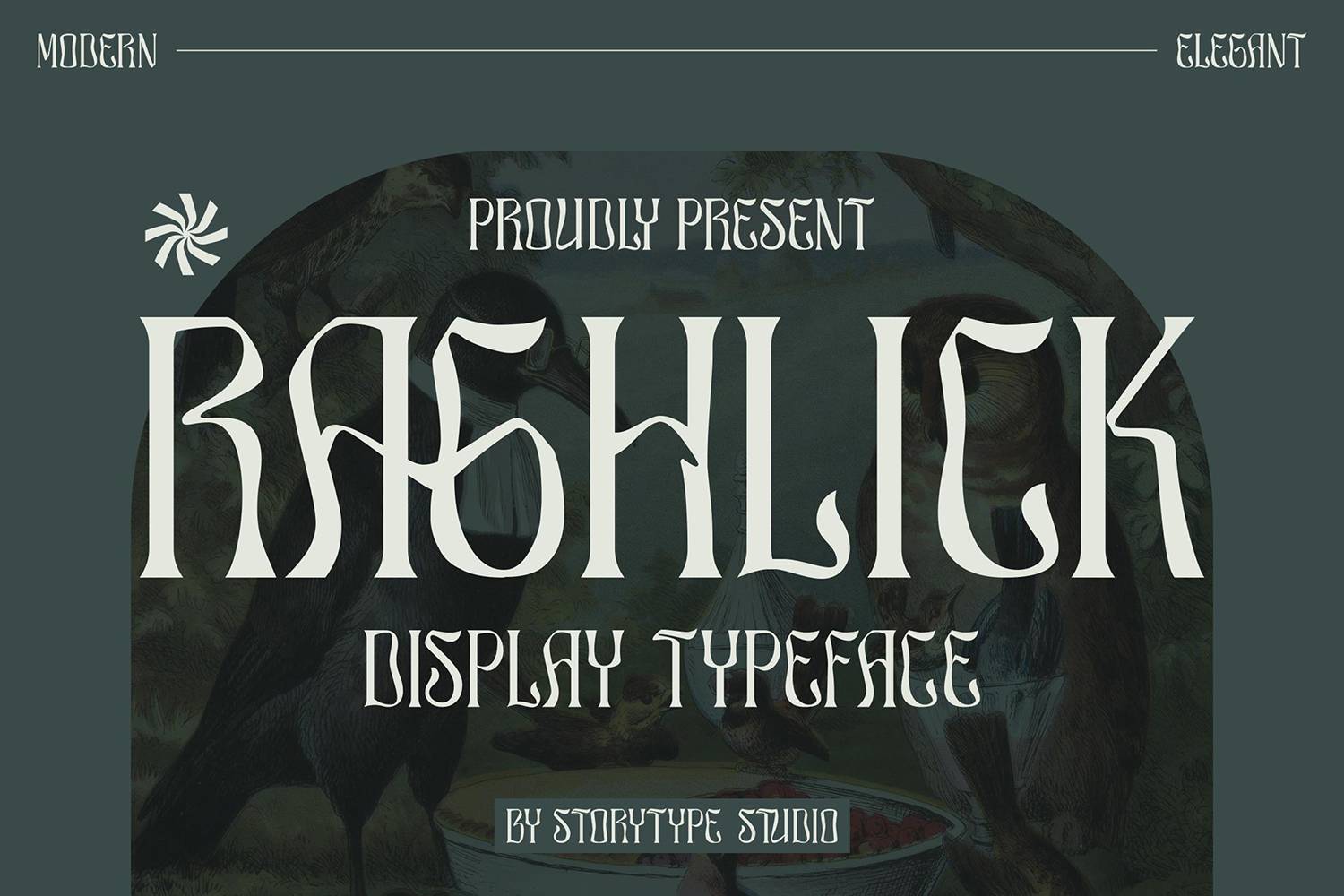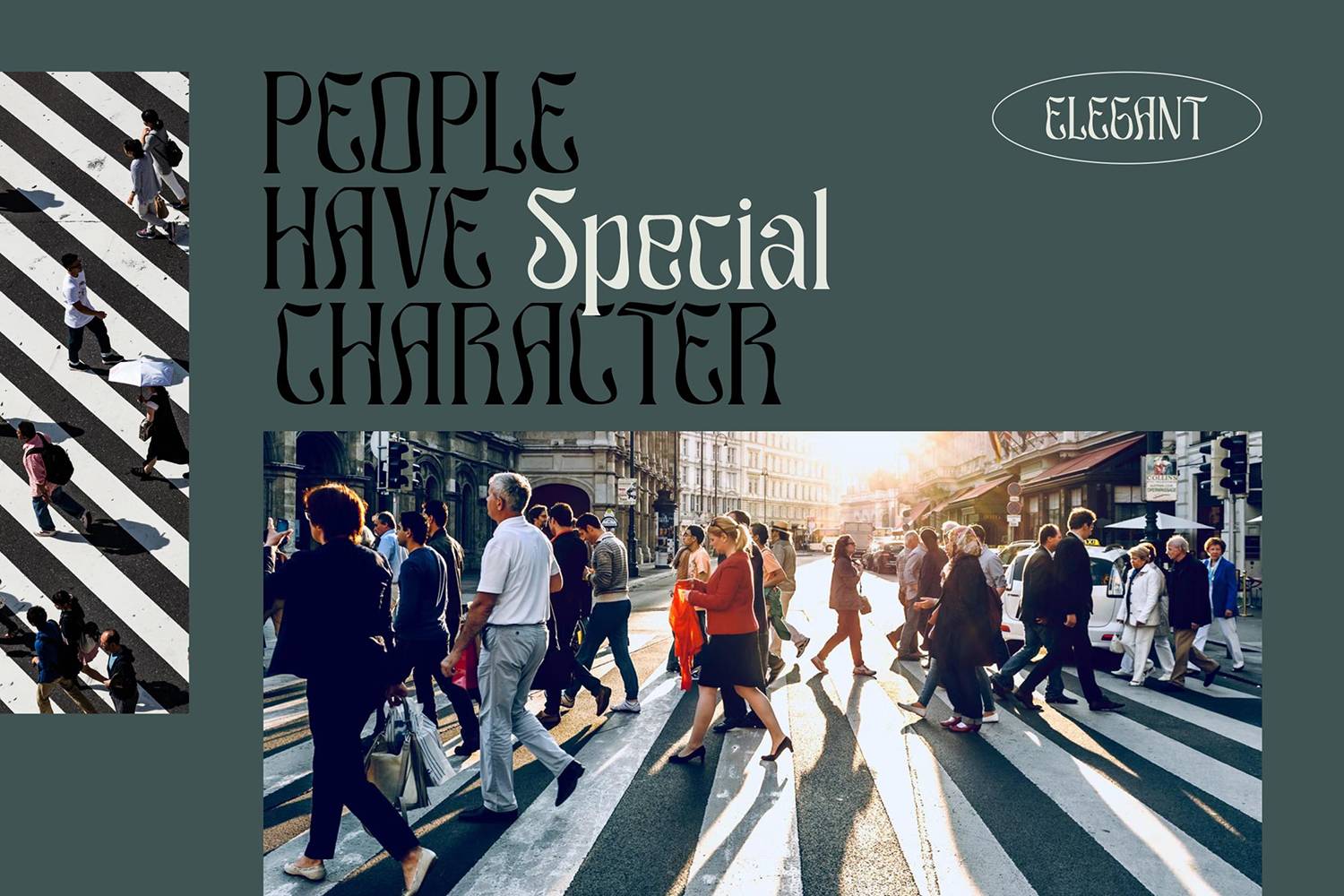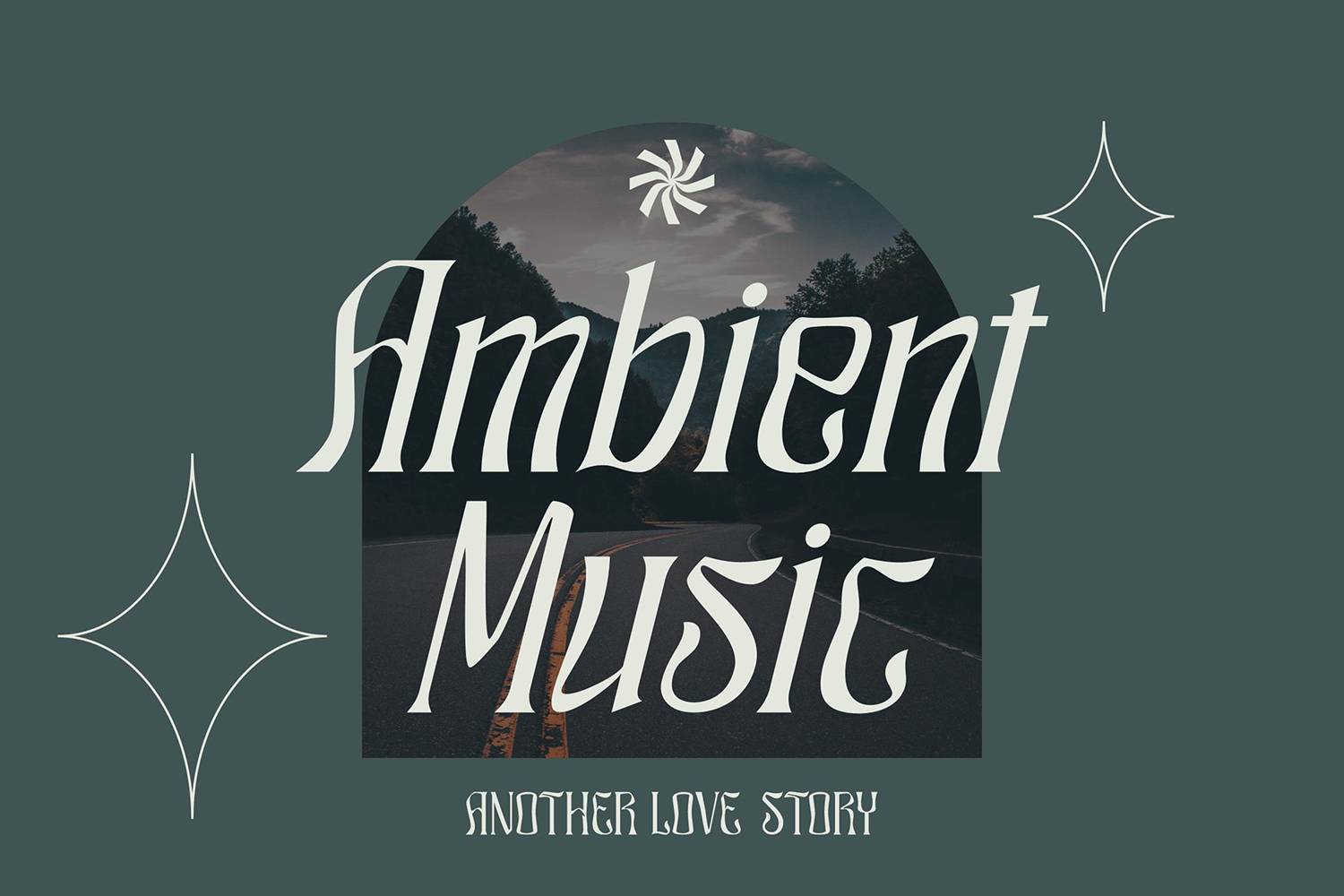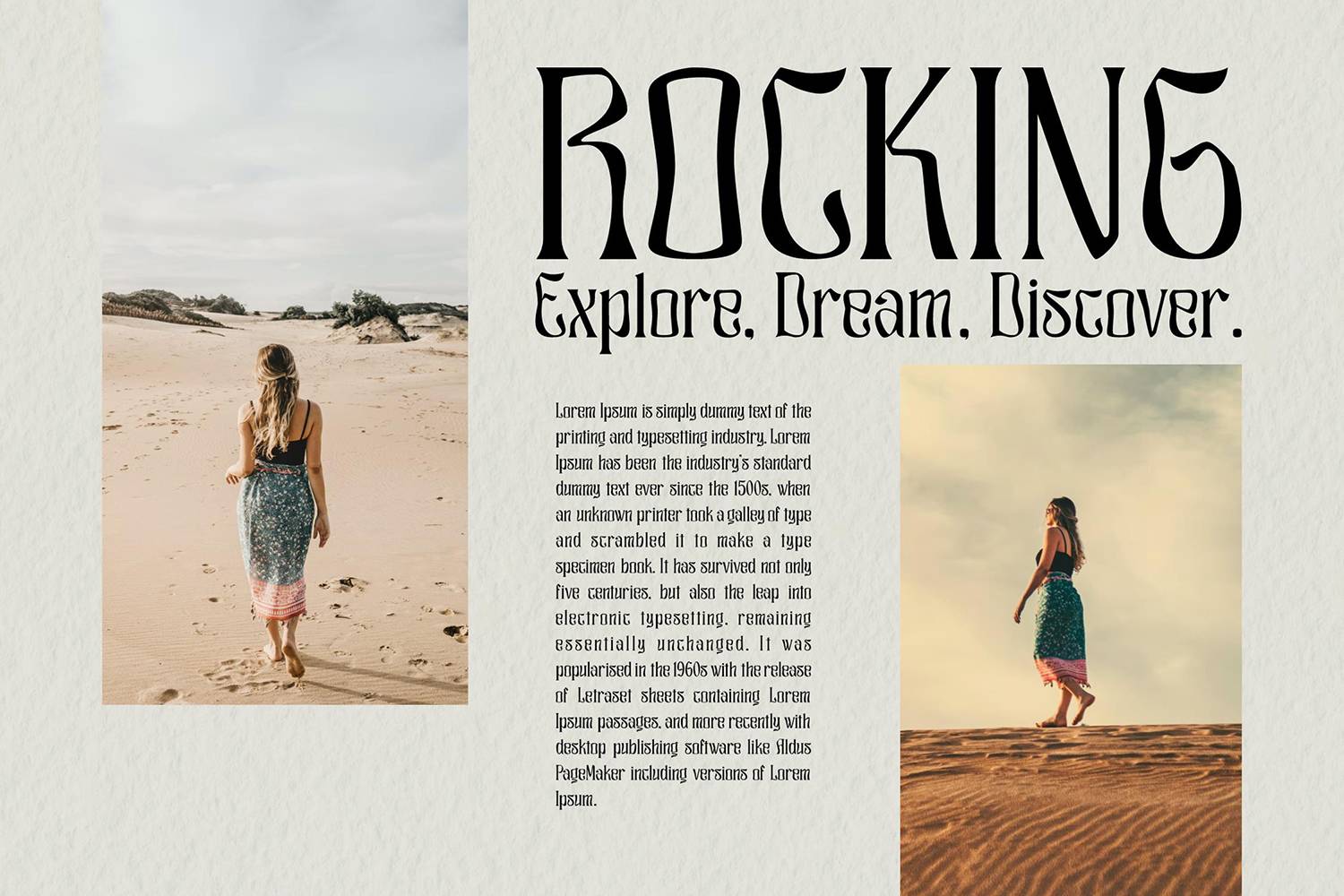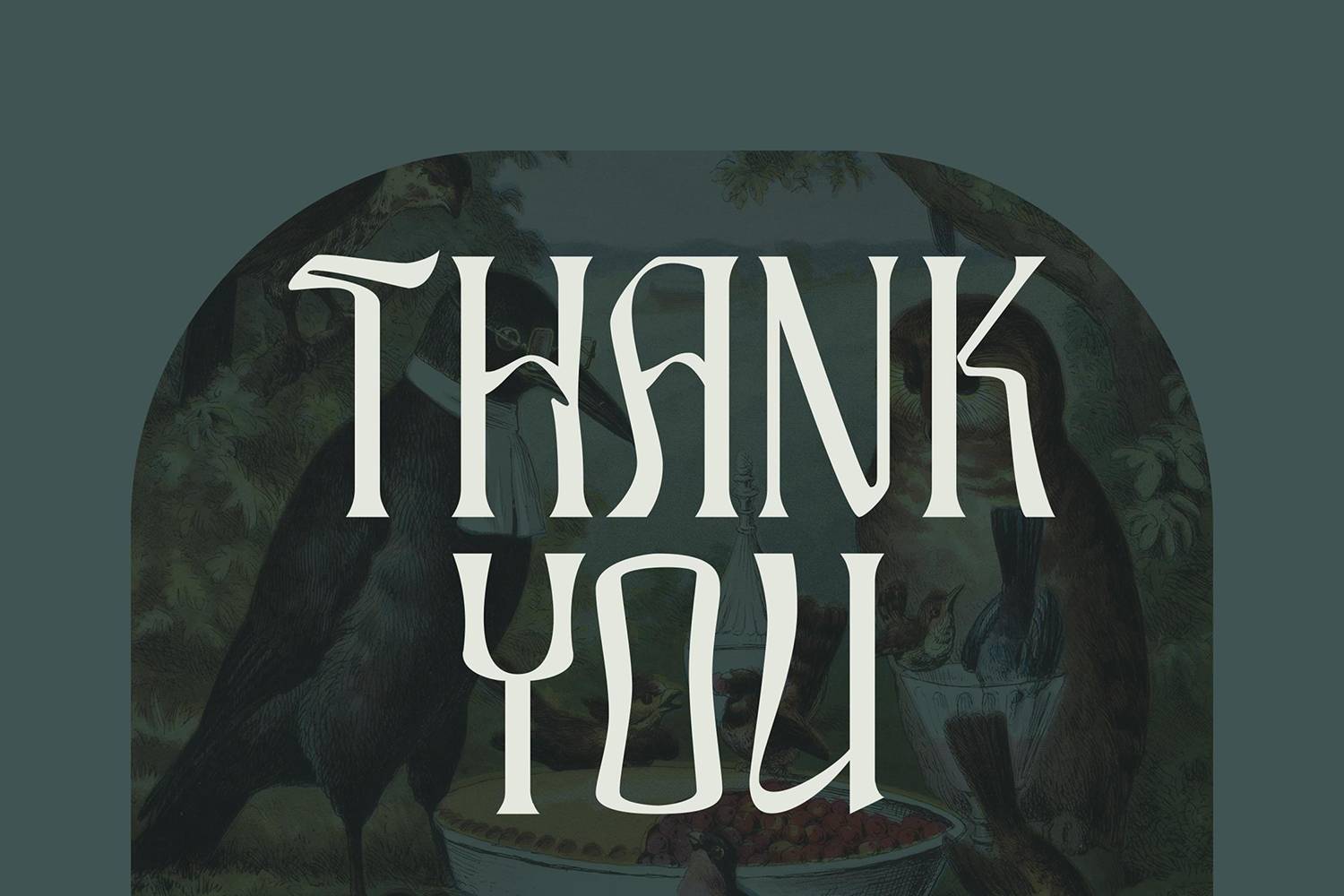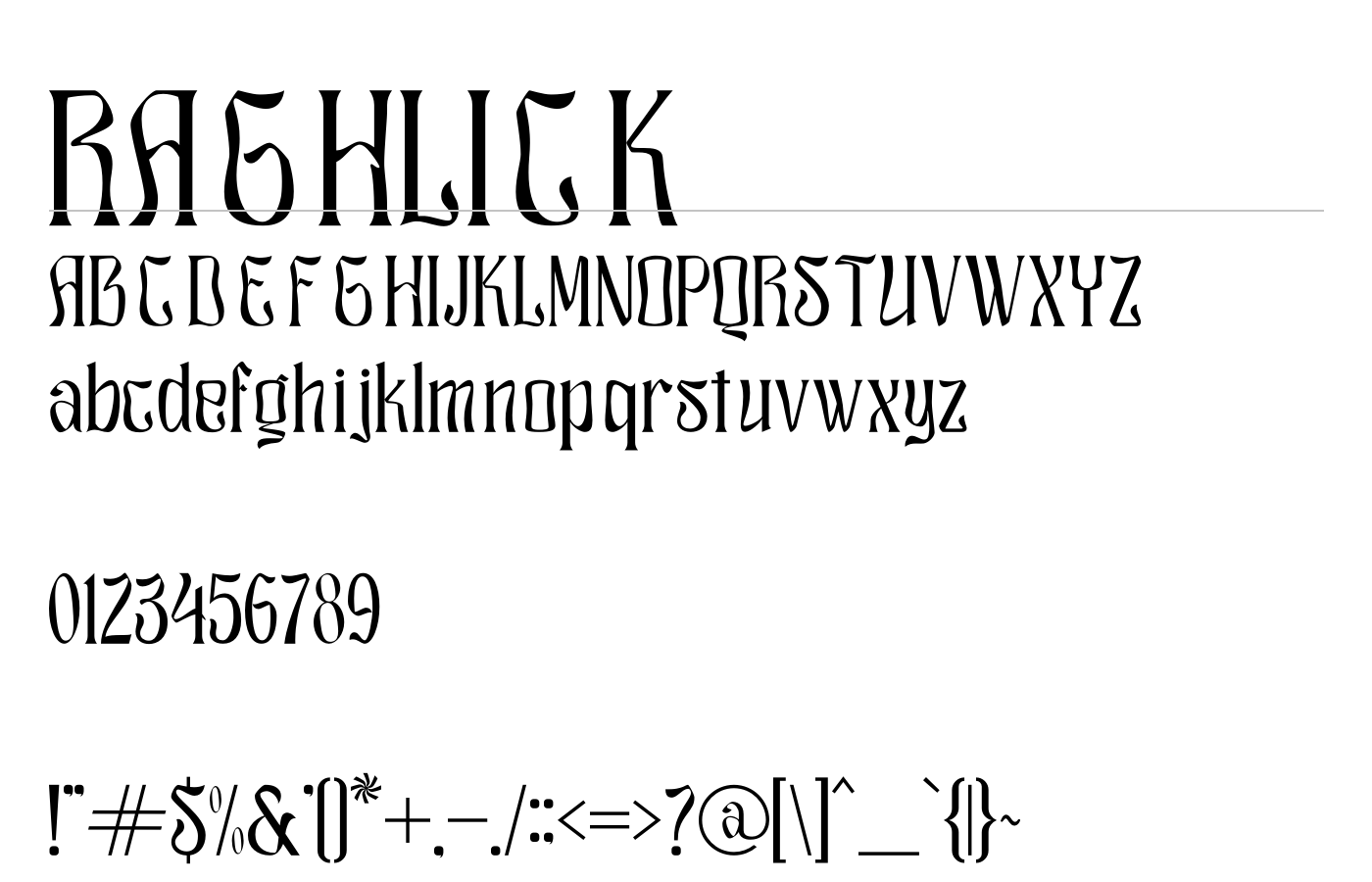
Raghlick is a narrow serif font with a unique, slightly gothic flair, featuring tall, slender letterforms and distinct sharp serifs that create a dramatic and refined appearance. Its moderate contrast between thick and thin strokes, along with elegant curves and unusual details like the flicked tails and unconventional shapes, make it ideal for eye-catching headlines, branding, or editorial designs seeking a mysterious, vintage-inspired style with a modern edge. This font works beautifully where individuality and sophistication are desired, adding a touch of intrigue and elegance to any project.
Raghlick Font
About Raghlick Font